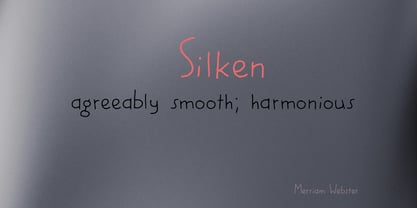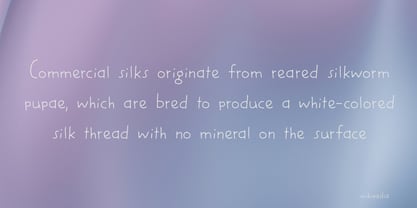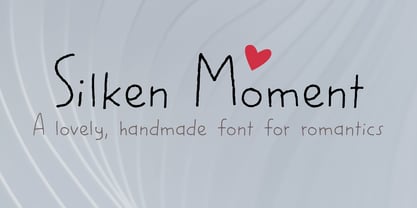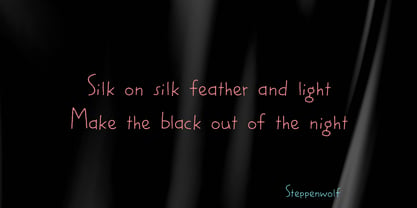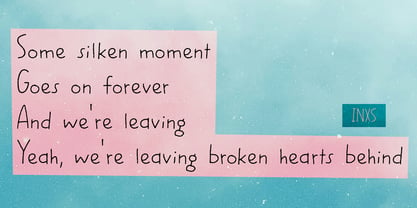
Silken Moment
by Kitchen Table Type Foundry
The Silken Moment Font Family was designed by David Kerkhoff and published by Kitchen Table Type Foundry. Silken Moment contains 2 styles and family package options.
When I was busy working on Silken Moment, I had an urgent chore to do in my fixer upper house. As I was busy, I listened to my favourite playlist (a seventies, eighties and nineties mix), which includes a song by INXS (from which the name is taken) called Mystify. Silken Moment is a nice, uncomplicated handwritten font. It comes with extensive language support and a generous joye-de-vivre. So, please, dive in and create something beautiful.